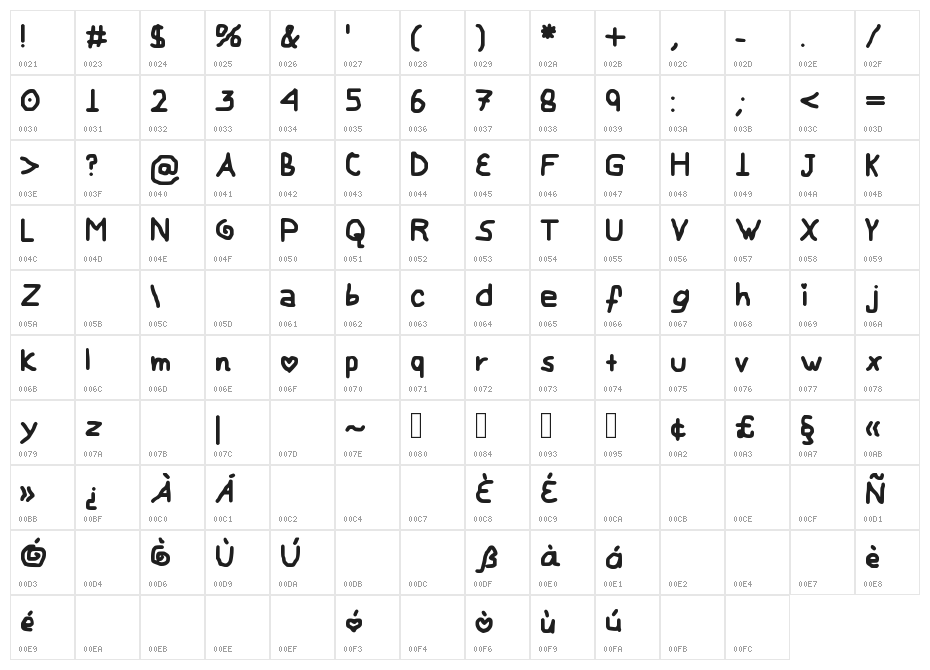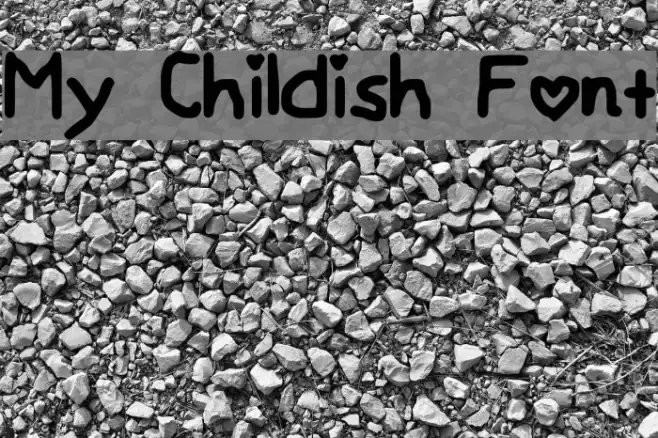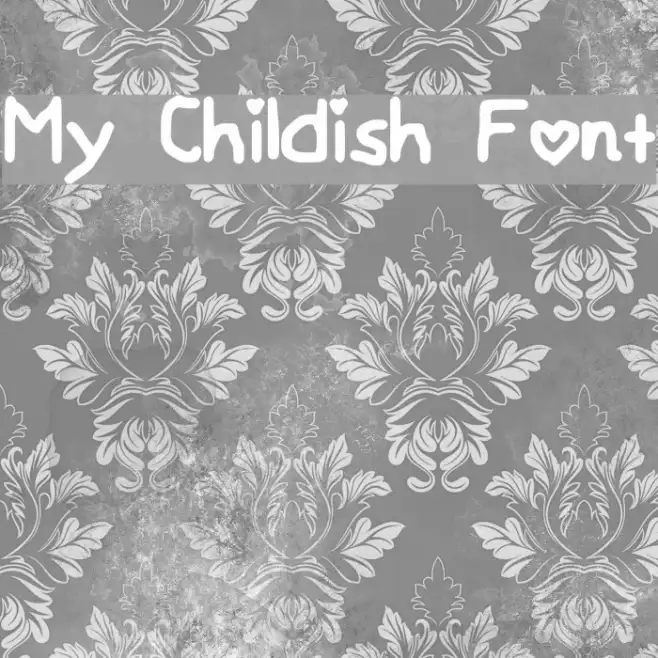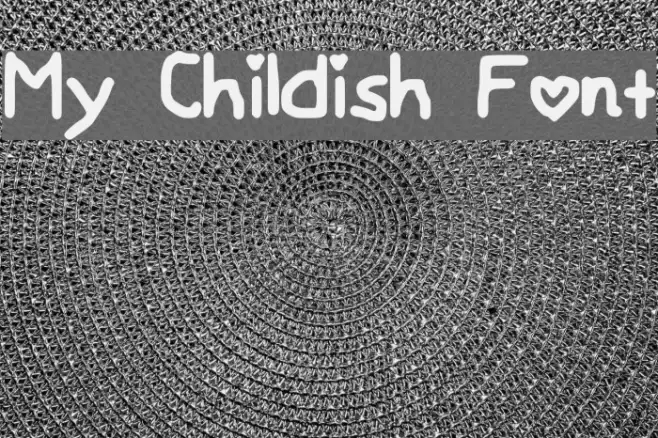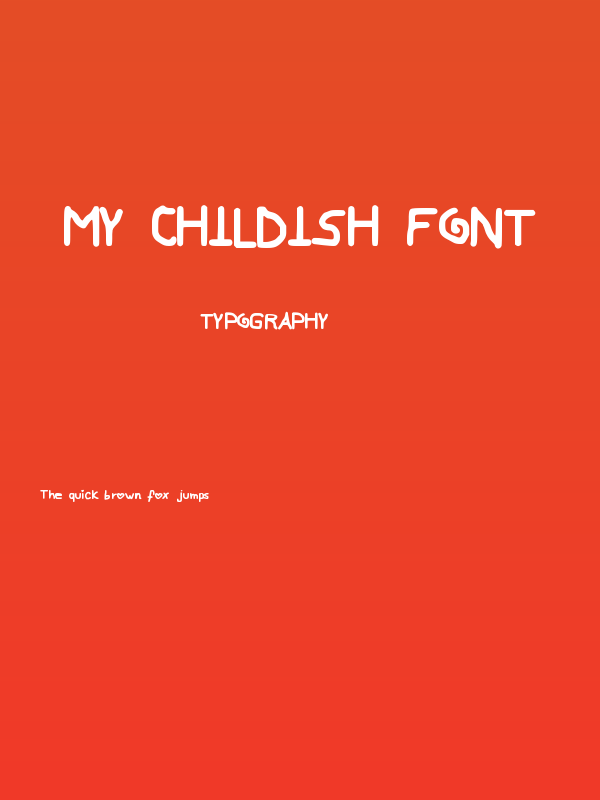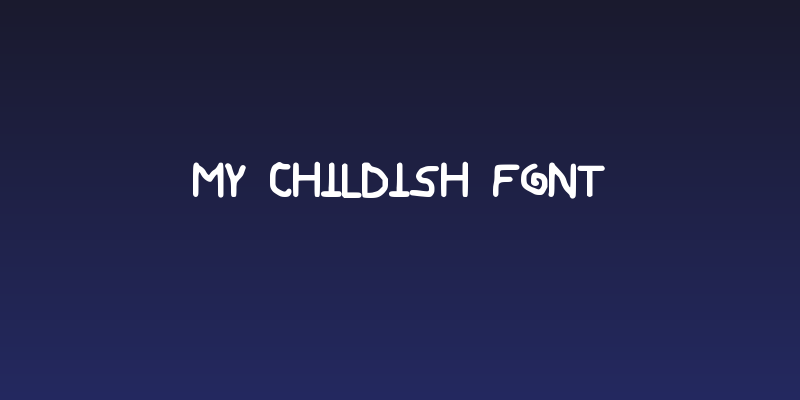
My Childish Font Font
My Childish Font Description
This playful and whimsical font features a hand-drawn style with a childlike charm. The letters are bold and rounded, with uneven strokes that give it a casual and friendly appearance. The uppercase and lowercase letters maintain a consistent style, with some characters like 'n' and 'o' incorporating heart shapes, adding to its playful nature. The numbers and special characters follow the same informal and quirky design, making it suitable for creative and fun projects. The overall look is approachable and light-hearted, perfect for capturing a youthful spirit.
| Use Case | Headlines, Logos, Children's content |
| Proposed Projects | Ideal for children's books, playful branding, greeting cards, and educational materials. |